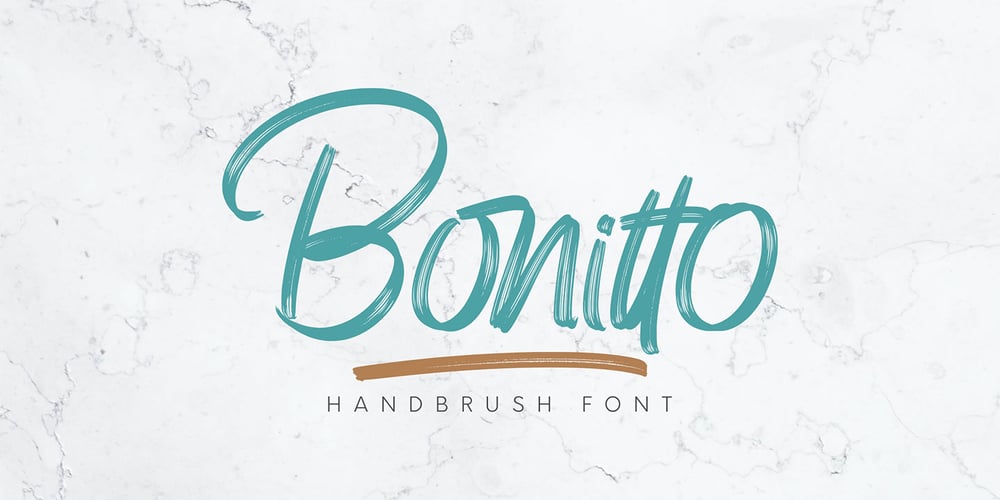
Bonitto Font Family was designed by Ibnu Utomo and published by Omotu. Bonitto contains 2 styles and family package options. Bonitto is a handwritten script font with 2 styles, Regular and Slant. Bonitto is suitable for branding, logotype, apparel, t-shirts, hoodies, product packaging, quotes, flyers, posters, advertising and more.What’s Included?1. Uppercase and lowercase characters 2. Multilingual support.3. Numerals, punctuations, and ligatures4. Accessible in the Adobe Illustrator Glyphs panel, or under Stylistic Alternates in the Adobe Photoshop OpenType menu, Adobe InDesign, Corel Draw, even work on Microsoft Word. Please message me if you’re unsure of any language support.Thanks for looking, and I hope you enjoy it! Please don’t hesitate to drop me a message if you have any issues or queries.Omotu Studio